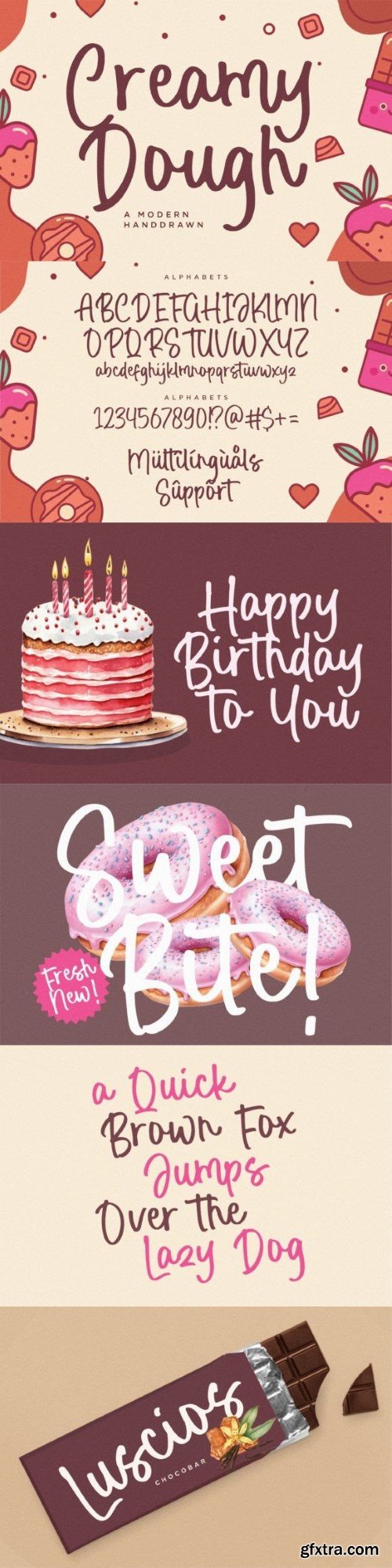
奶油慕斯字体
Creamy Dough is a modern handwritten font that’s clean, elegant and perfect for a range of design projects! With its smooth, effortless lines and understated sophistication, this font is the perfect choice for those who want a modern look that’s still timeless in its appeal.